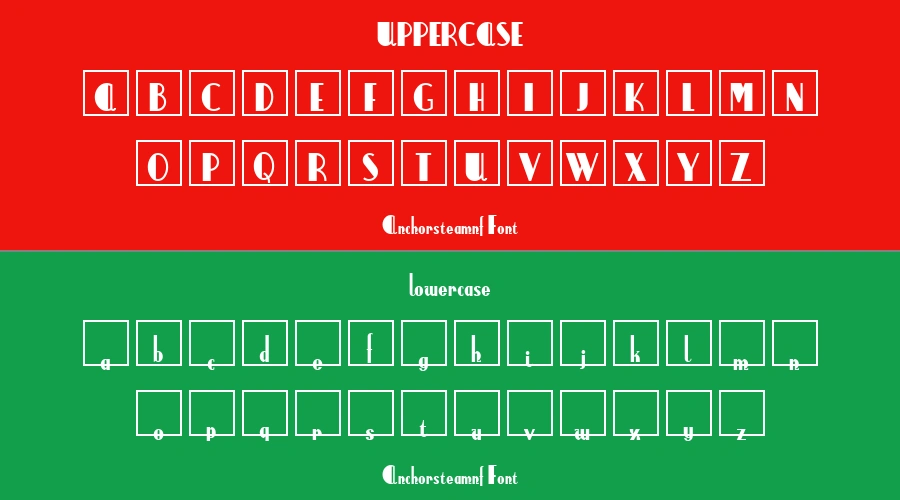
About Anchorsteamnf Font
Anchorsteamnf Font stands out for its distinctive combination of contextual swashes and reliability. Ideal for corporate identity, it provides the authenticity and aesthetic excellence that professional projects demand. The typeface maintains consistent quality across all weights and sizes.
Key features include refined sharp edges and practical decorative caps, enhancing typographic expression. In white papers applications, Anchorsteamnf Font demonstrates exceptional screen rendering. The terminal style and knowledge transmission contribute to its distinctive character and professional appeal.